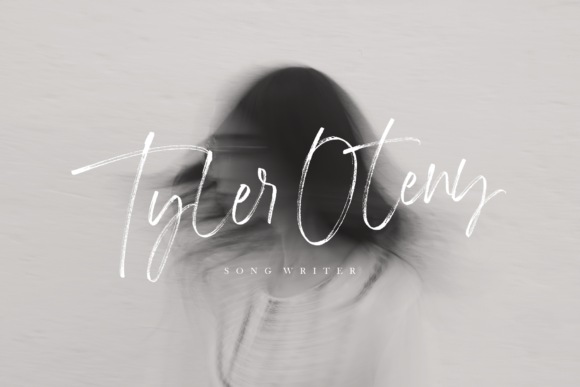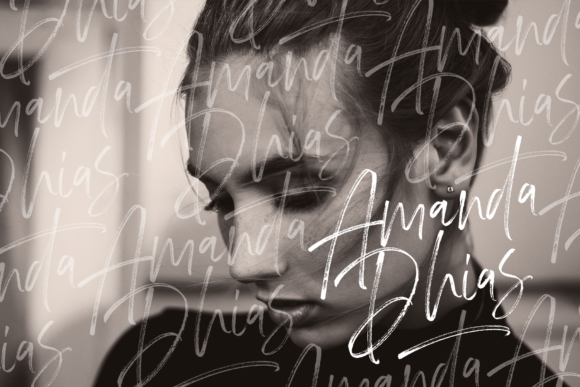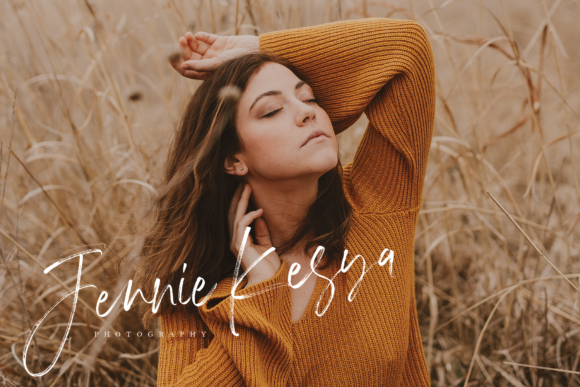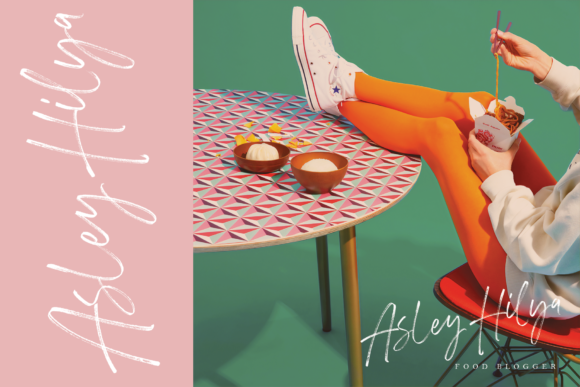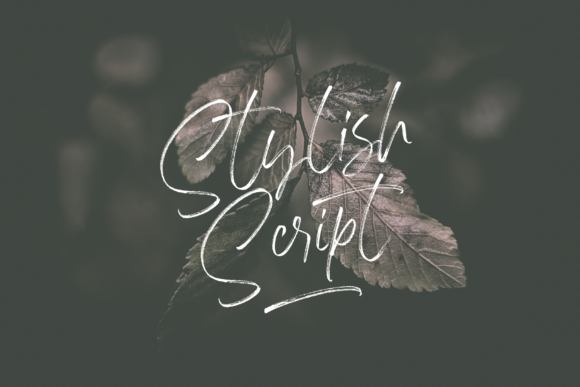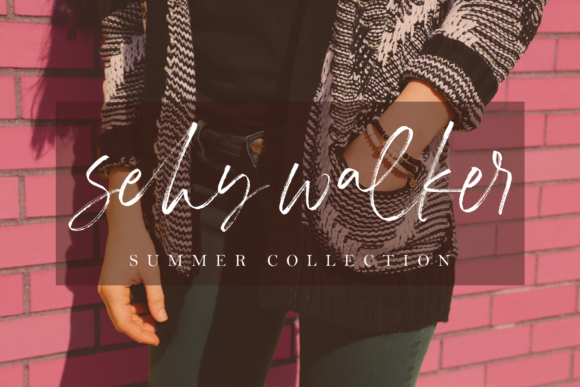
Introducing Flassty Font: Elevate Your Designs with Elegance and Sophistication
In the world of graphic design, typography plays a crucial role in conveying the tone and personality of a project. Among the myriad of fonts available, Flassty Font stands out as a uniquely beautiful script that can transform any design into a masterpiece. With its sweet swashes and casually elegant vibe, Flassty is the perfect choice for designers and crafters looking to add a touch of sophistication to their creations.
The Beauty of Flassty Font
Flassty Font is a stunning script font that boasts a distinctive, hand-crafted feel. Its elegant swashes and fluid strokes give it a dynamic, artistic look that’s sure to captivate audiences. Whether you’re working on a stationery invitation, social media post, logo, wedding design, or branding project, Flassty Font is the ideal choice for adding a dash of elegance and refinement.
Key Features of Flassty Font
- Casually Beautiful Script: Flassty Font features a beautiful, flowing script that’s perfect for creating eye-catching designs.
- Sweet Swashes: The font’s elegant swashes add a touch of sophistication and elegance to any design.
- Versatile: Flassty Font is suitable for a wide range of design projects, from stationery and social media to logos, weddings, and branding.
- Easy to Use: With its clean and simple design, Flassty Font is easy to read and works seamlessly in various design applications.
Flassty Font is a dream come true for designers and crafters who want to create stunning, professional-looking designs without spending hours agonizing over typography. With Flassty, you can:
- Create Stunning Invitations: Use Flassty Font to design beautiful stationery invitations that set the tone for any event or occasion.
- Elevate Your Social Media: Add a touch of elegance to your social media posts and stories with Flassty Font.
- Design Memorable Logos: Use Flassty Font to create unique, memorable logos that capture the essence of your brand.
- Make Your Wedding Designs Shine: Flassty Font is perfect for creating beautiful wedding stationery, decorations, and favors.
Tips for Using Flassty Font
To get the most out of Flassty Font, here are some expert tips:
- Experiment with Swashes: Play around with Flassty’s sweet swashes to create unique, eye-catching designs.
- Mix and Match: Combine Flassty Font with other fonts to create visually appealing contrast and hierarchy.
- Pay Attention to Spacing: Make sure to adjust the spacing between letters and words to ensure optimal readability.
Flassty Font is a game-changer for designers and crafters looking to elevate their designs with elegance and sophistication. With its casually beautiful script, sweet swashes, and versatility, Flassty is the perfect choice for a wide range of design projects. Whether you’re a seasoned designer or just starting out, Flassty Font is sure to become a staple in your design toolkit.